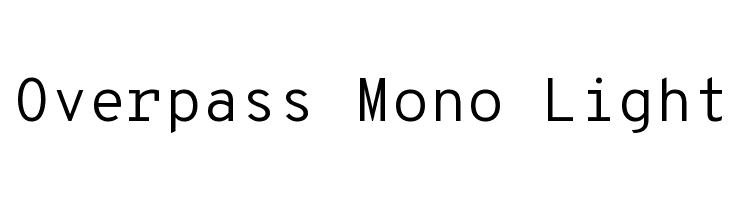
A modern, monospaced font with clean lines and excellent readability.
A modern, monospaced font with consistent stroke thickness and high legibility.
A clean, modern monospaced typeface with uniform spacing and minimal stroke contrast.
A modern, thin sans-serif font with a clean and minimalist design.